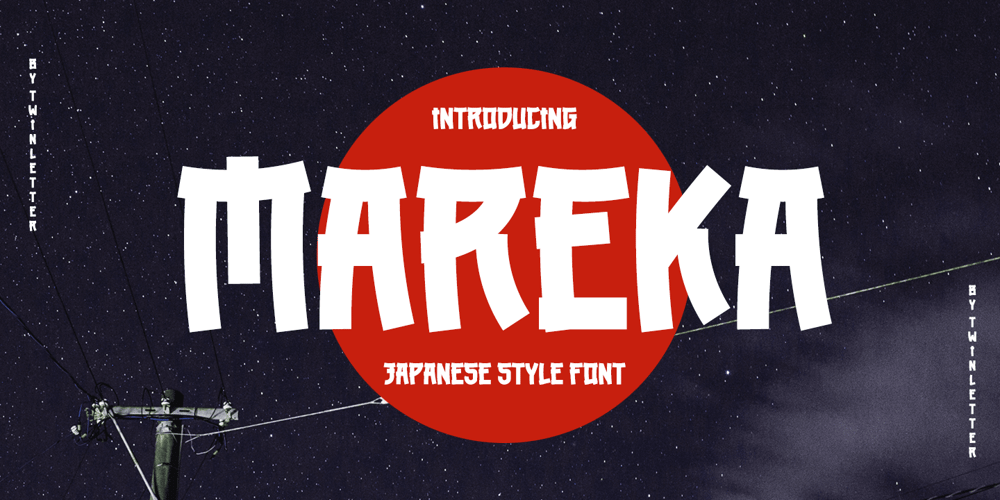
Mareka Japanese Style
Mareka Japanese Style font
Mareka Japanese Style Font Family was designed by Rozikan and published by Twinletter. Mareka Japanese Style contains 1 styles and family package options. Mareka, our newest font, is now released.Beautiful, tidy, and elegant font with a distinctive shape. If you employ this typeface, your once-good project will become something truly unique. This typeface is appropriate since the shape of each letter may be used in a variety of ways, including serious, relaxed, and natural.Because everyone does not necessarily understand Japanese letters, we supply fonts with letters that can be utilized for your project. We produced this display font with a Japanese theme or an Asian font, which we designed to fulfill the needs of your Japanese-themed project. Of sure, your initiative will be understood by people all around the world.Logotypes, food banners, branding, brochure, posters, movie titles, book titles, quotes, and more may all benefit from this font.Of course, using this font in your various design projects will make them excellent and outstanding; many viewers are drawn to the striking and unusual graphic display.Start utilizing this typeface in your projects to make them stand out.